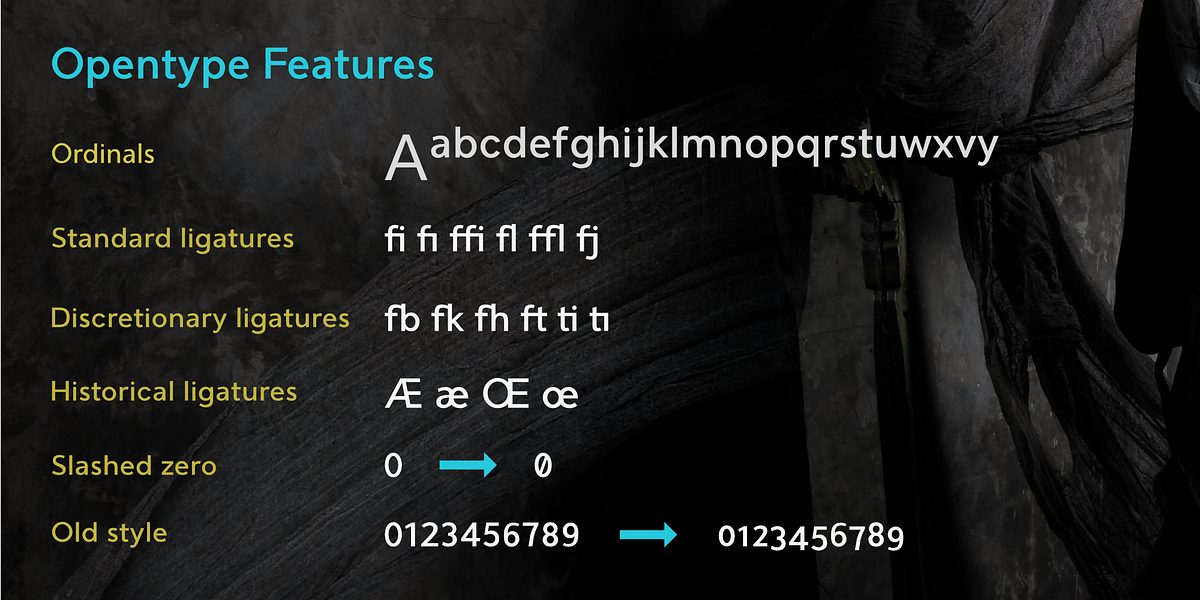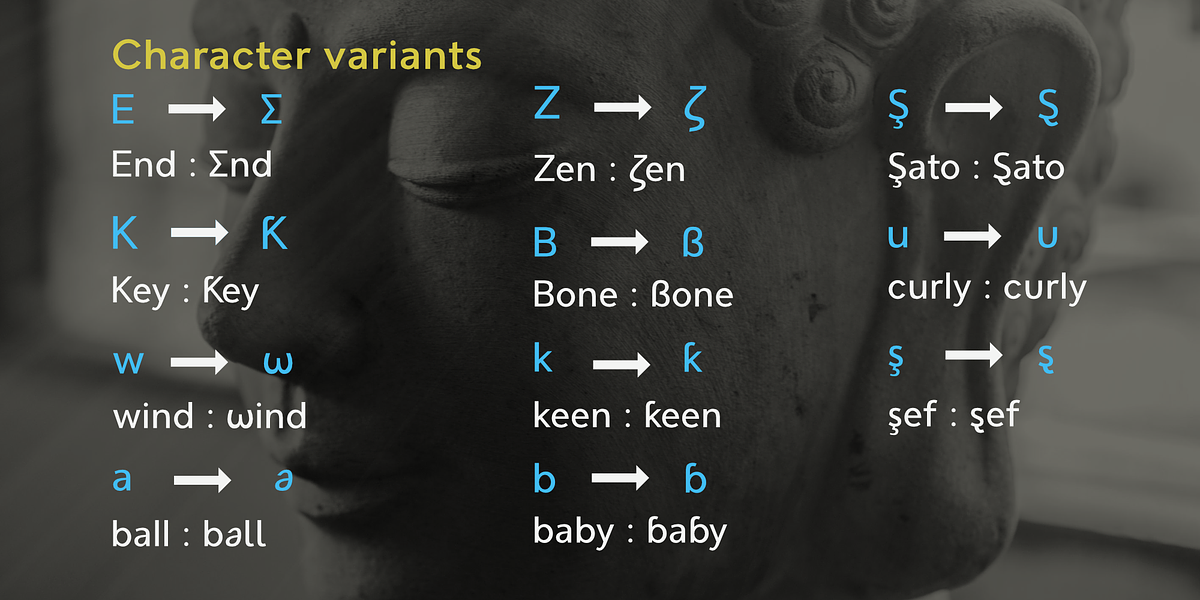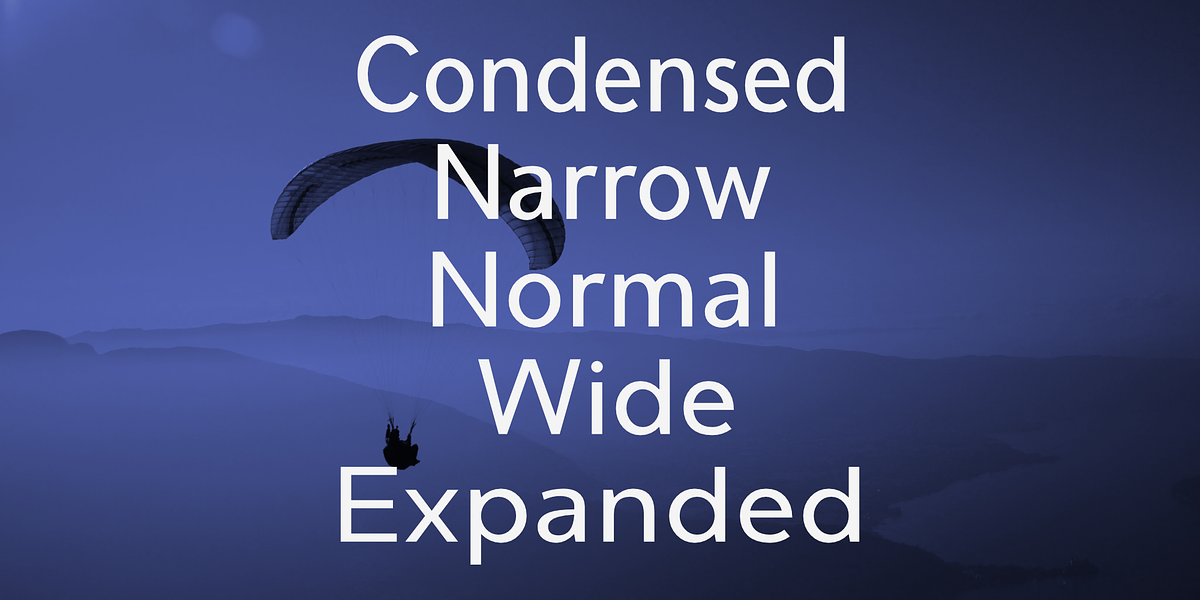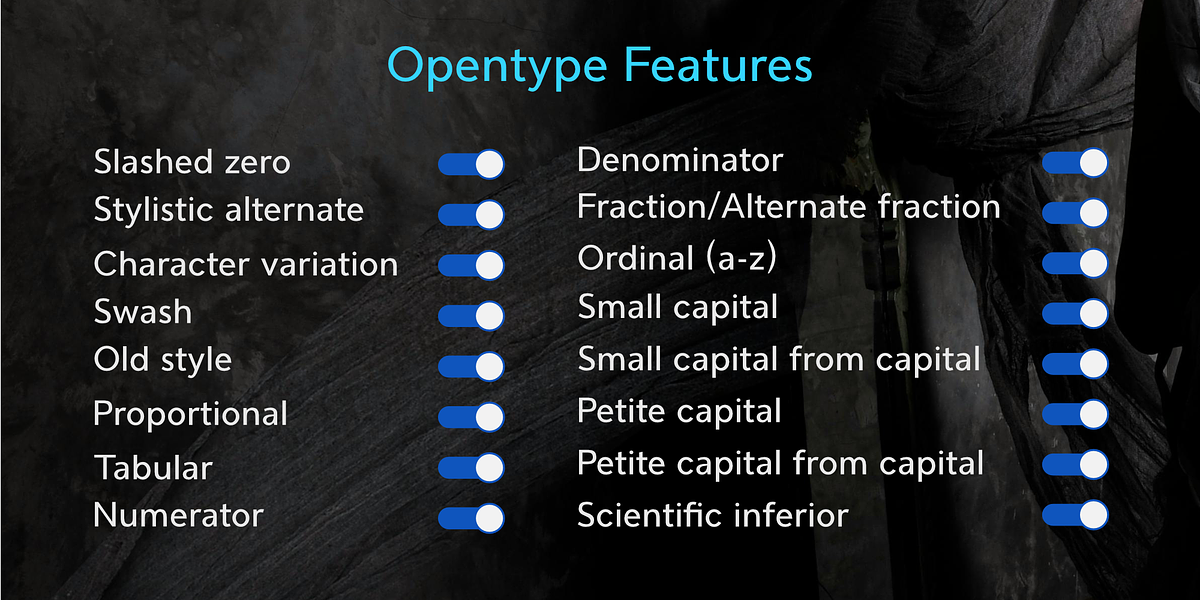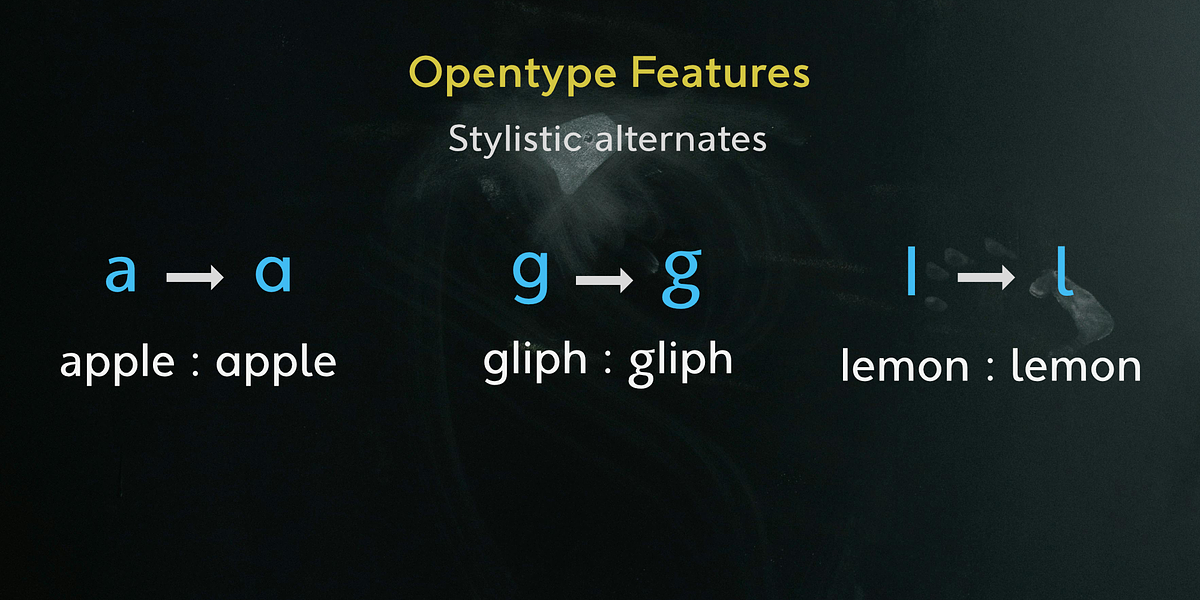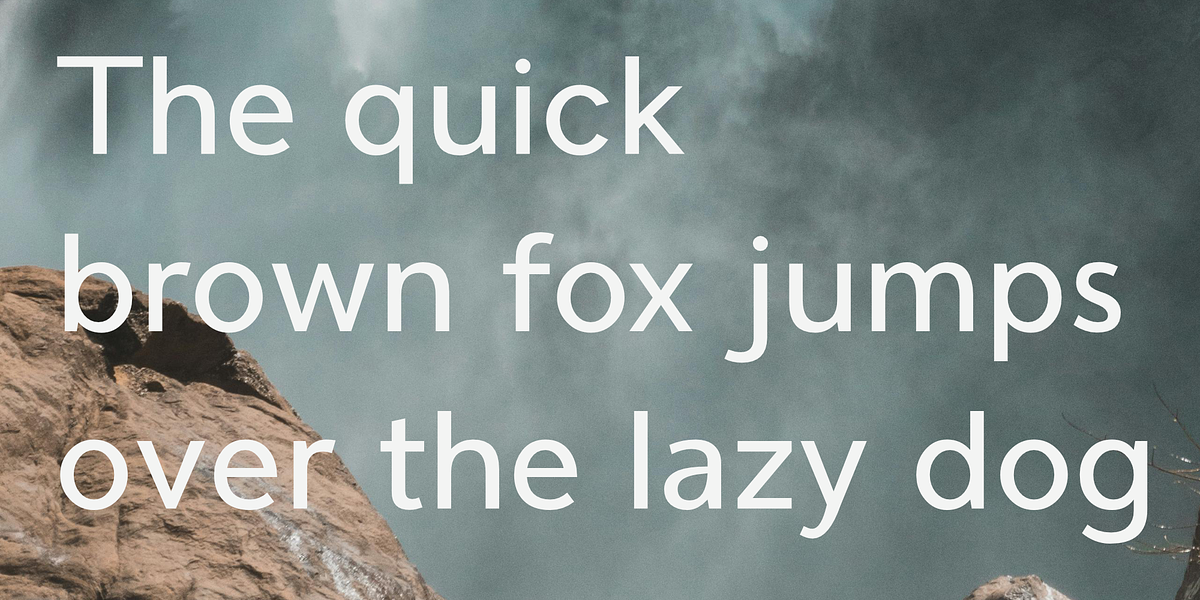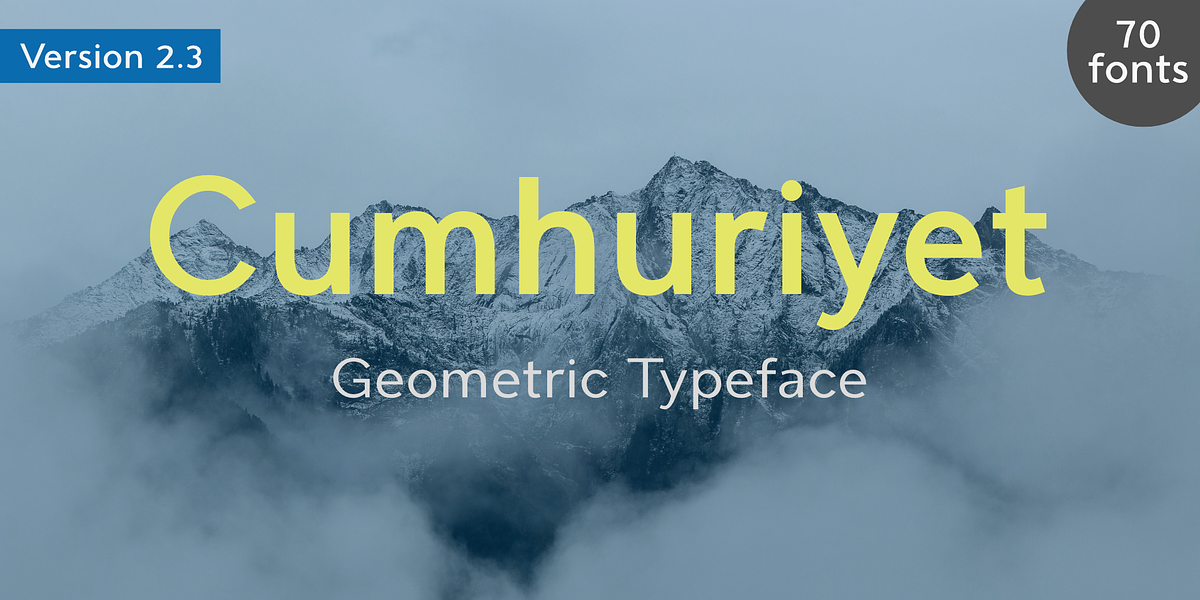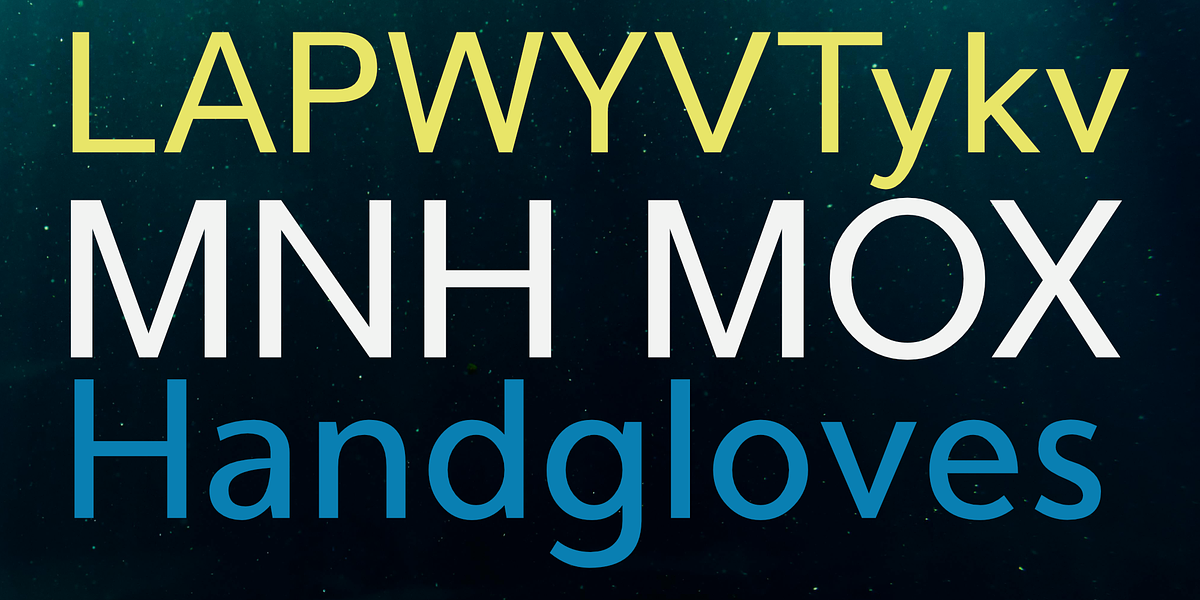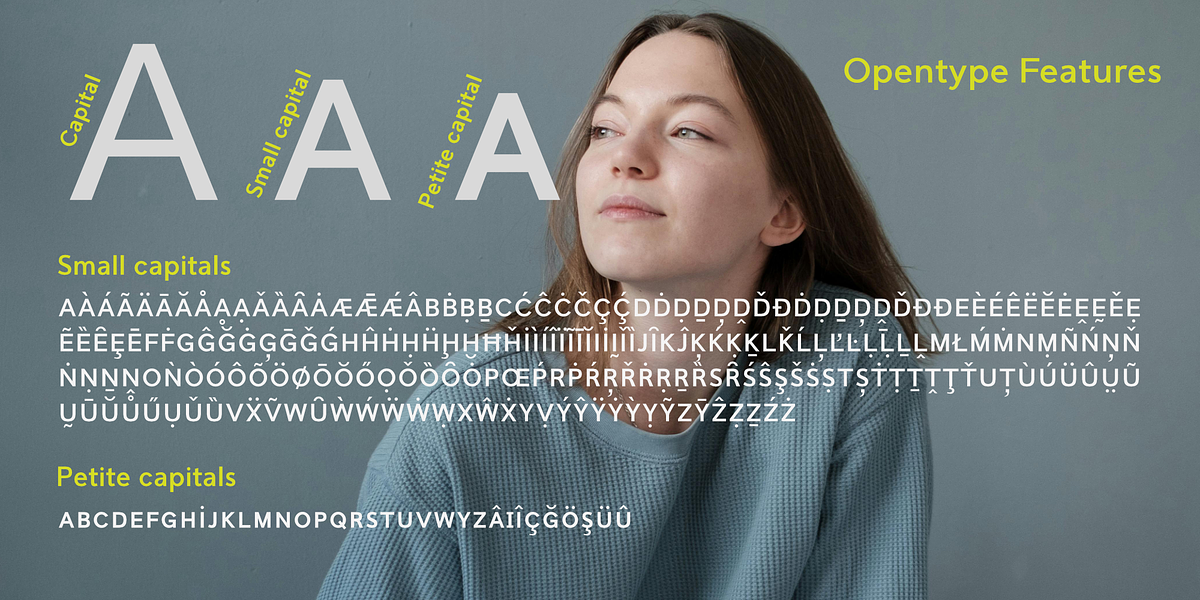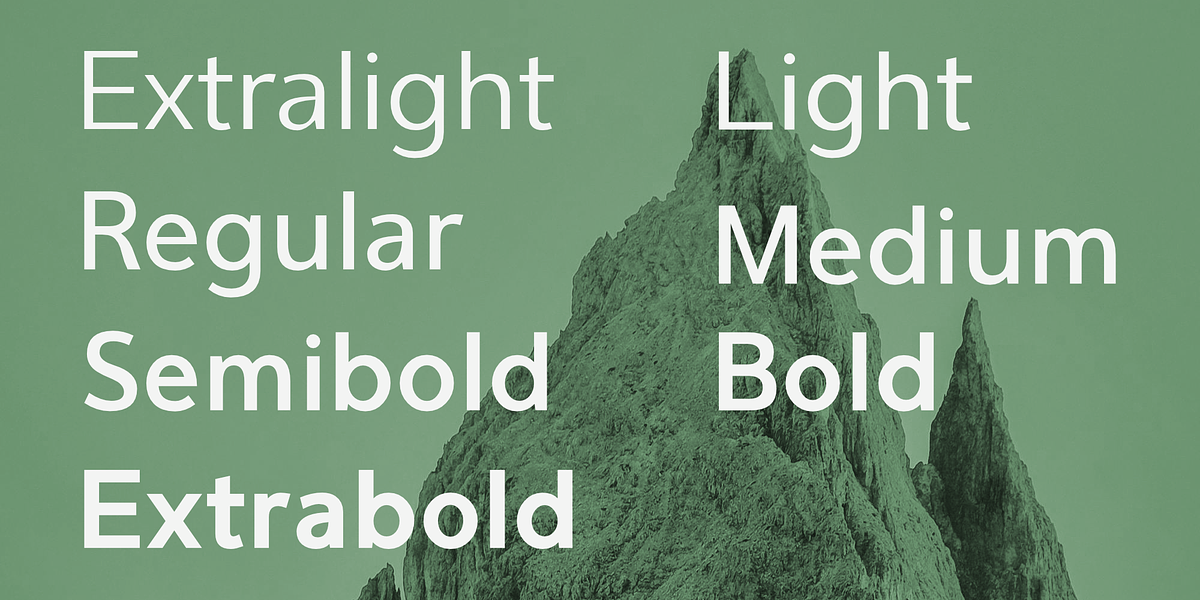
Cumhuriyet
Cumhuriyet is a modern geometric sans-serif typeface designed for versatility. It offers 70 styles spanning various weights and widths, making it suitable for diverse design applications. The font boasts extensive OpenType features including slashed zero, stylistic alternates, character variations, and support for small capitals and petite capitals. Cumhuriyet excels in printed products, media, digital environments, and is particularly well-suited for body text due to its neutral and legible design.